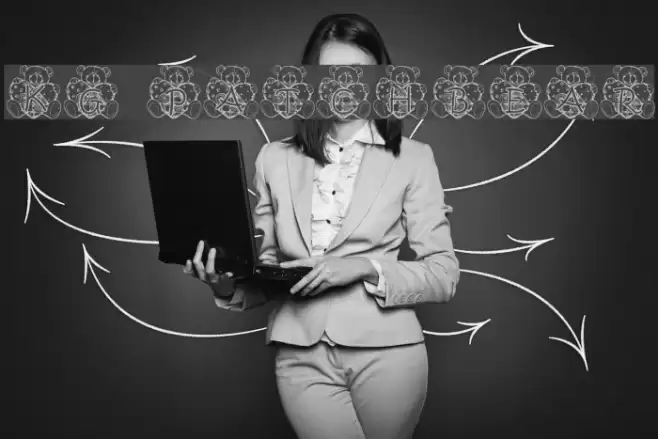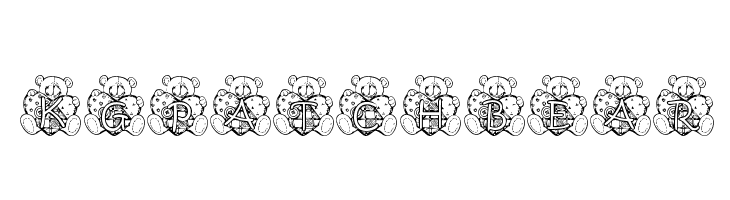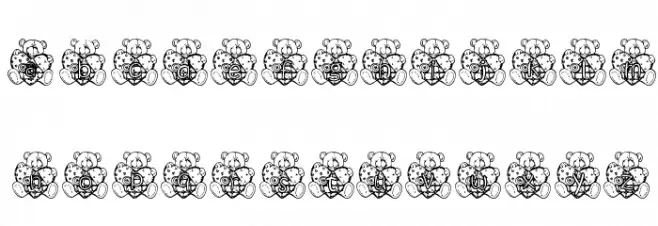
KG PATCHBEAR Font
KG PATCHBEAR Description
This playful and whimsical font features each letter encapsulated within a charming teddy bear design. The characters are bold and distinct, with a cartoonish style that adds a sense of fun and creativity. The teddy bears are intricately detailed, providing a unique and eye-catching appearance. This font is perfect for children's projects, adding a touch of innocence and joy. The letters are evenly spaced, ensuring readability while maintaining the decorative aspect of the design. The font does not include numbers or special characters, focusing solely on the alphabet.
A whimsical font with letters inside teddy bear designs, perfect for playful projects from Uncategorized fonts.
- Proposed Projects: Ideal for children's books, birthday invitations, toy packaging, and playful branding.
- Overall Style: Playful, Whimsical
- Use Case: Headlines, Logos, Decorative text